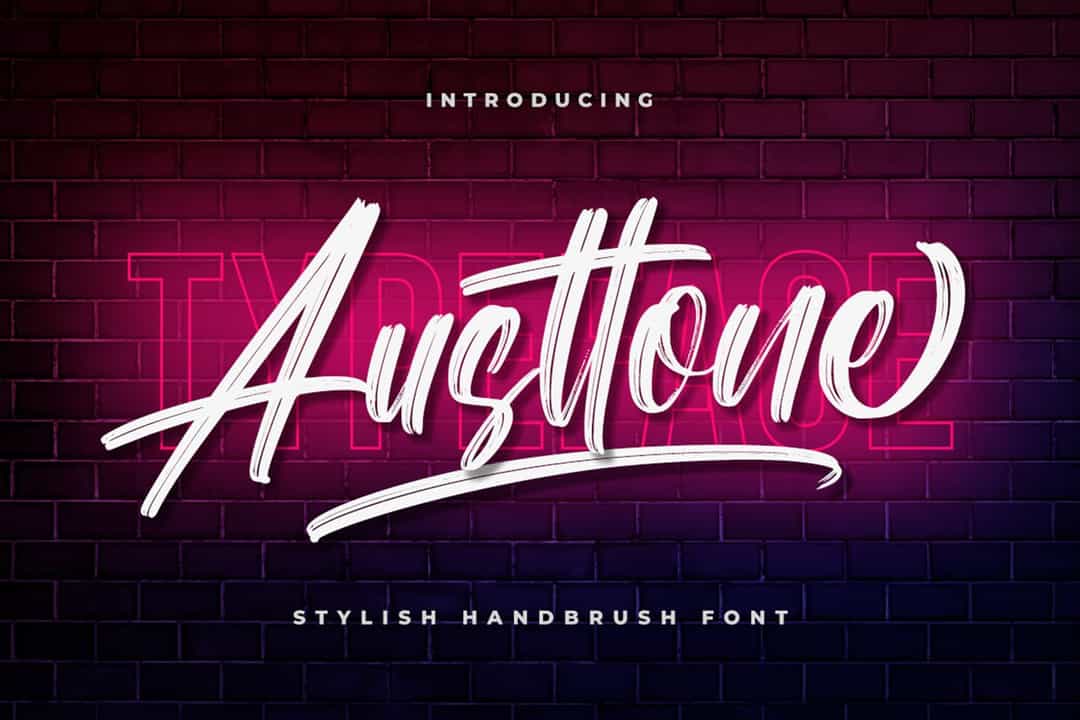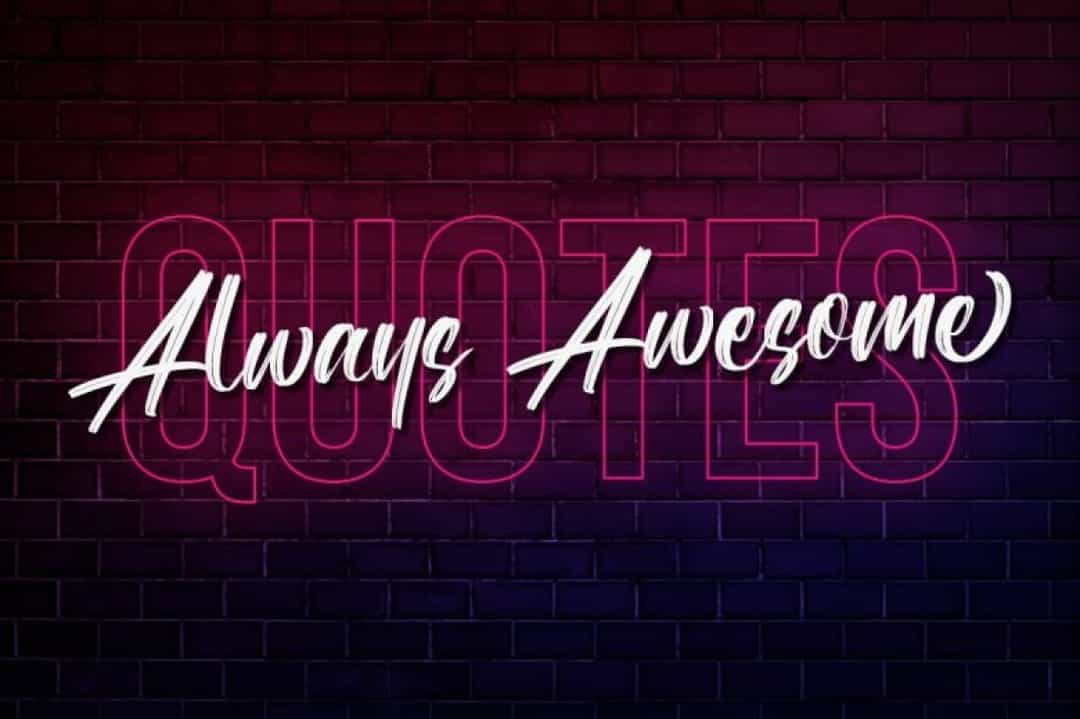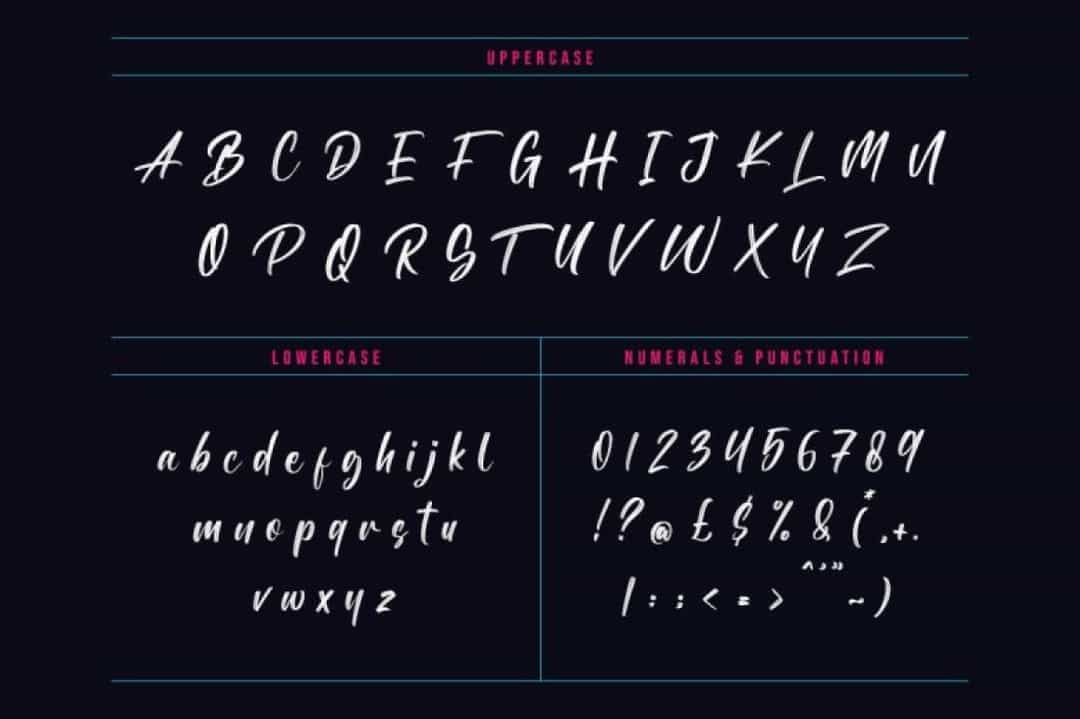
Austtone can be described as an original brush script font that makes an impactful statement in modern design projects. The font features sharper corners than most brush script fonts, making it suitable for display applications within digital media.